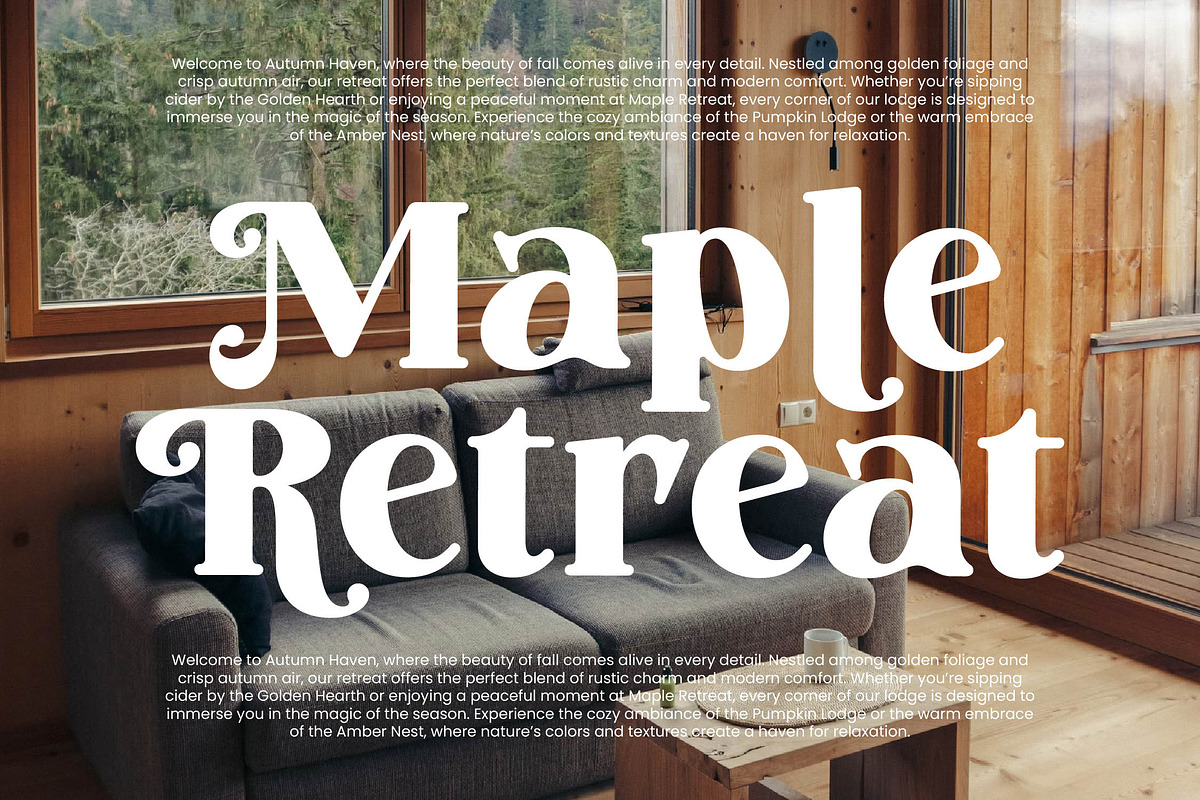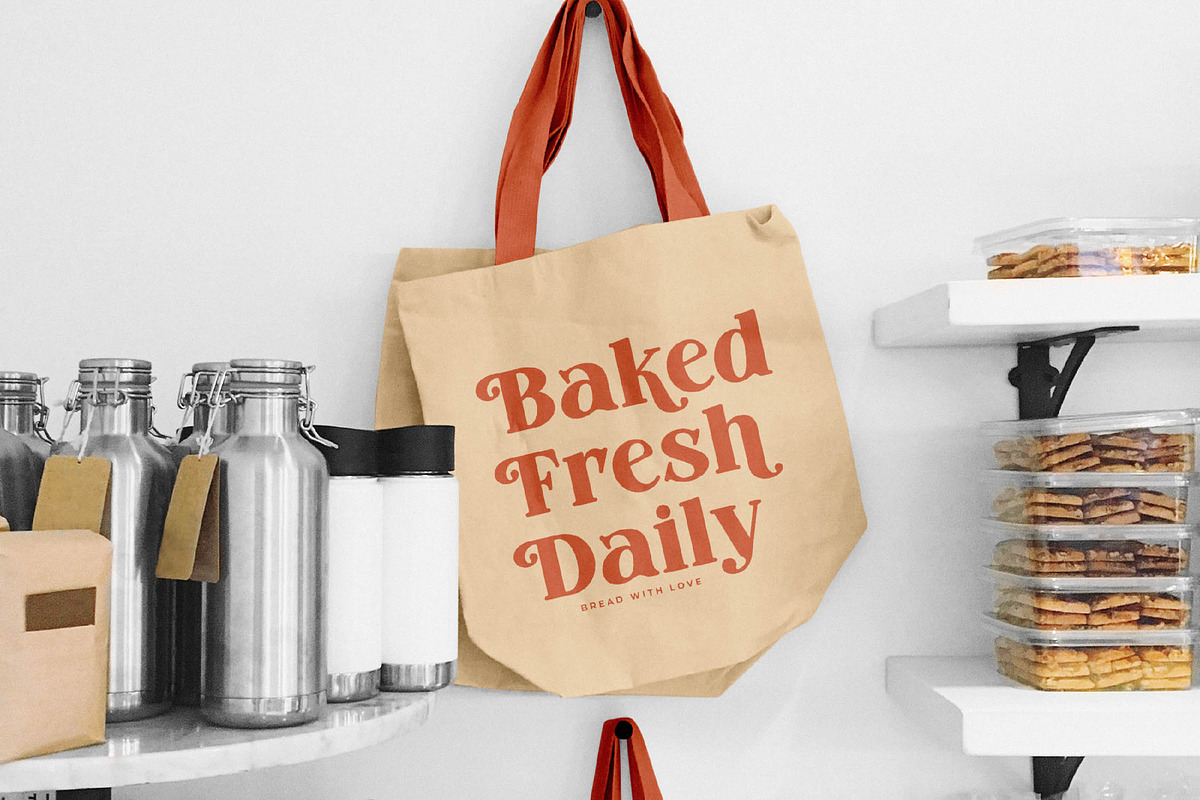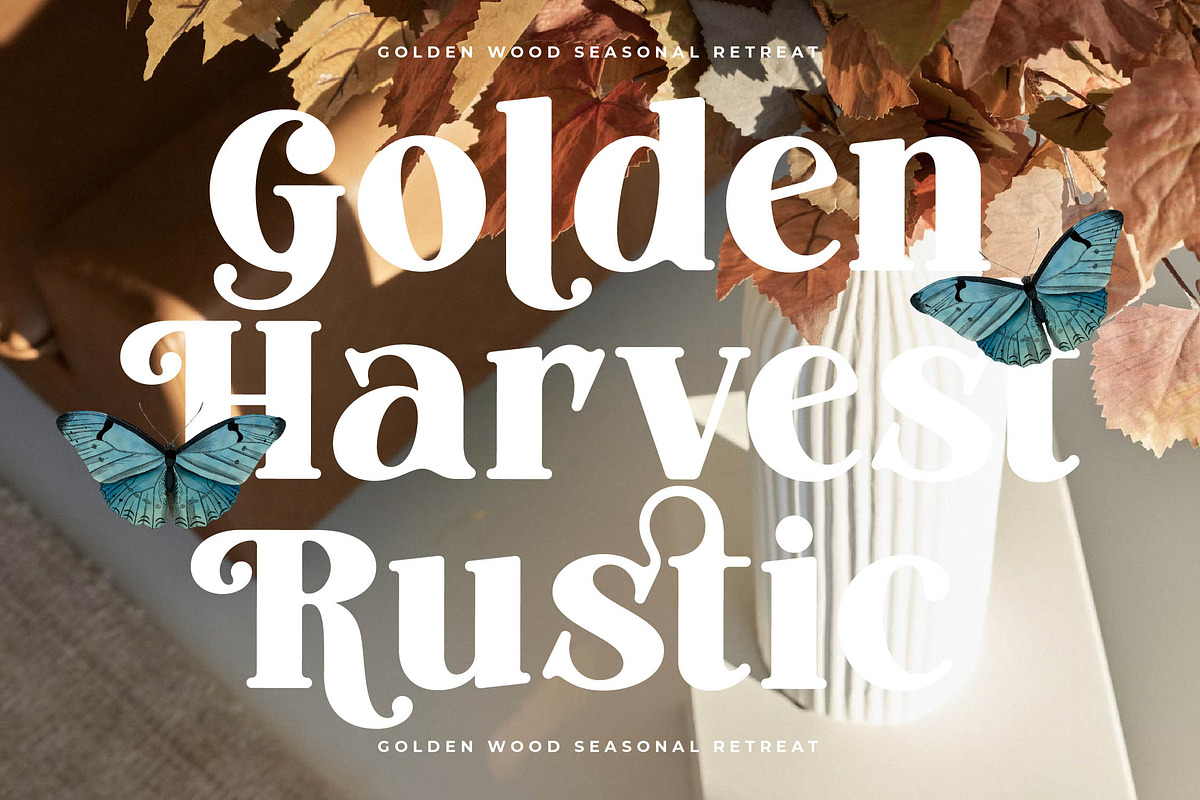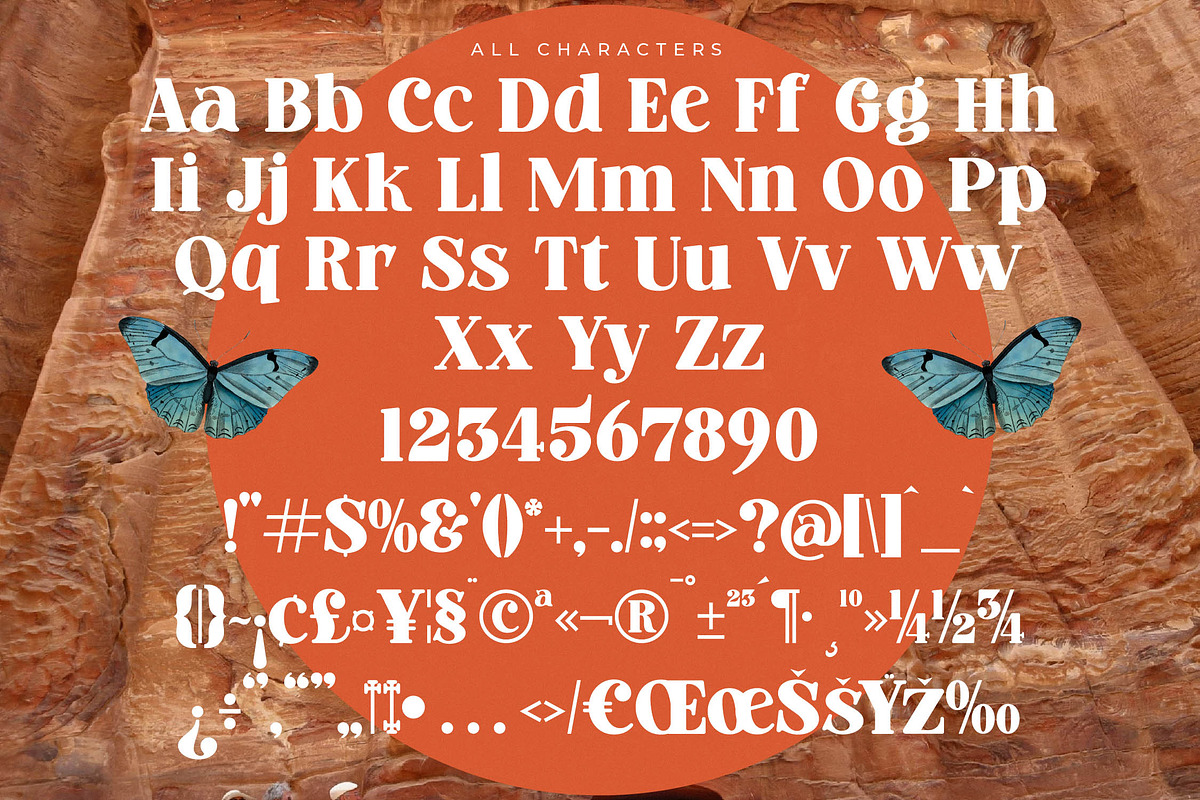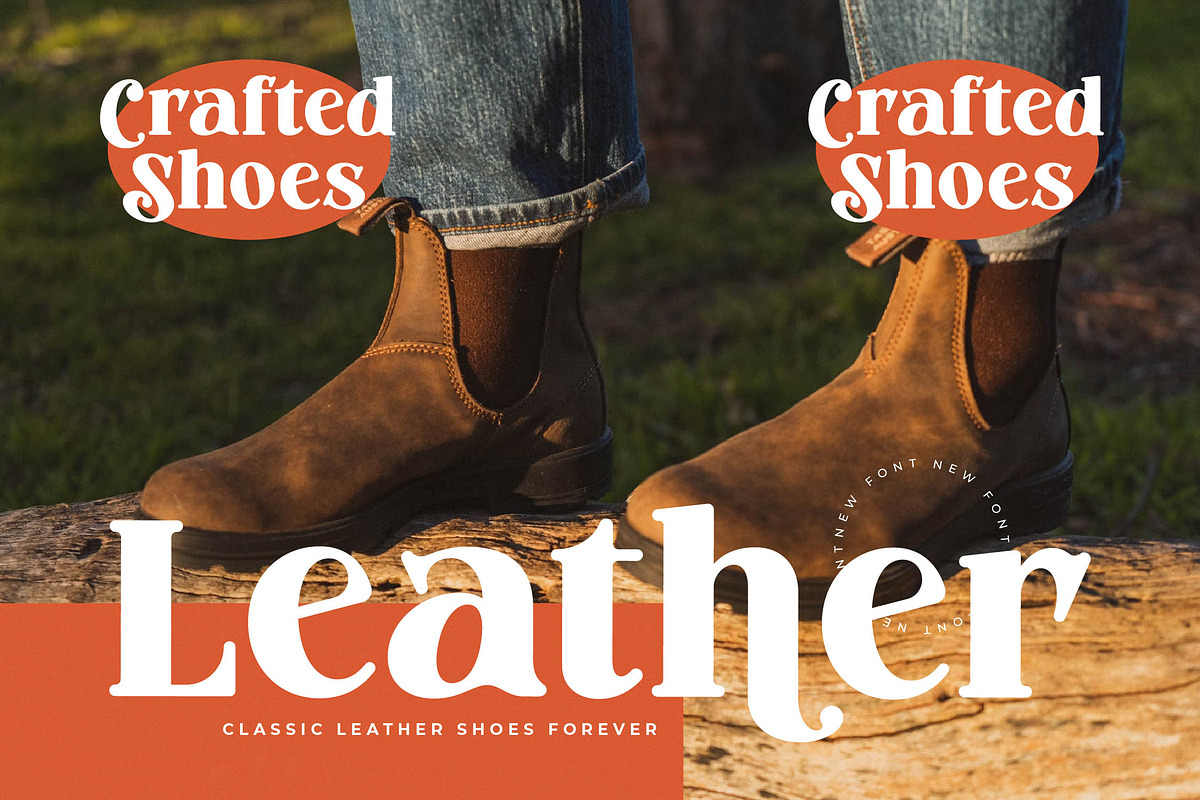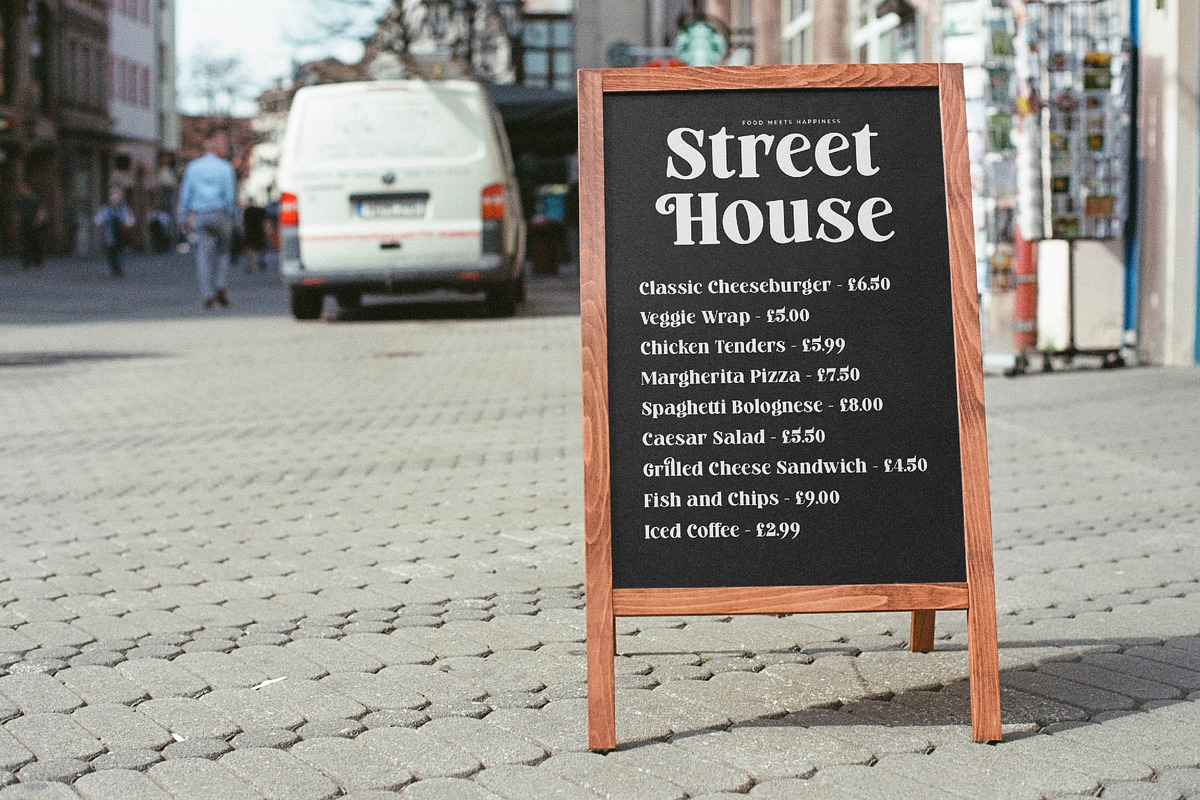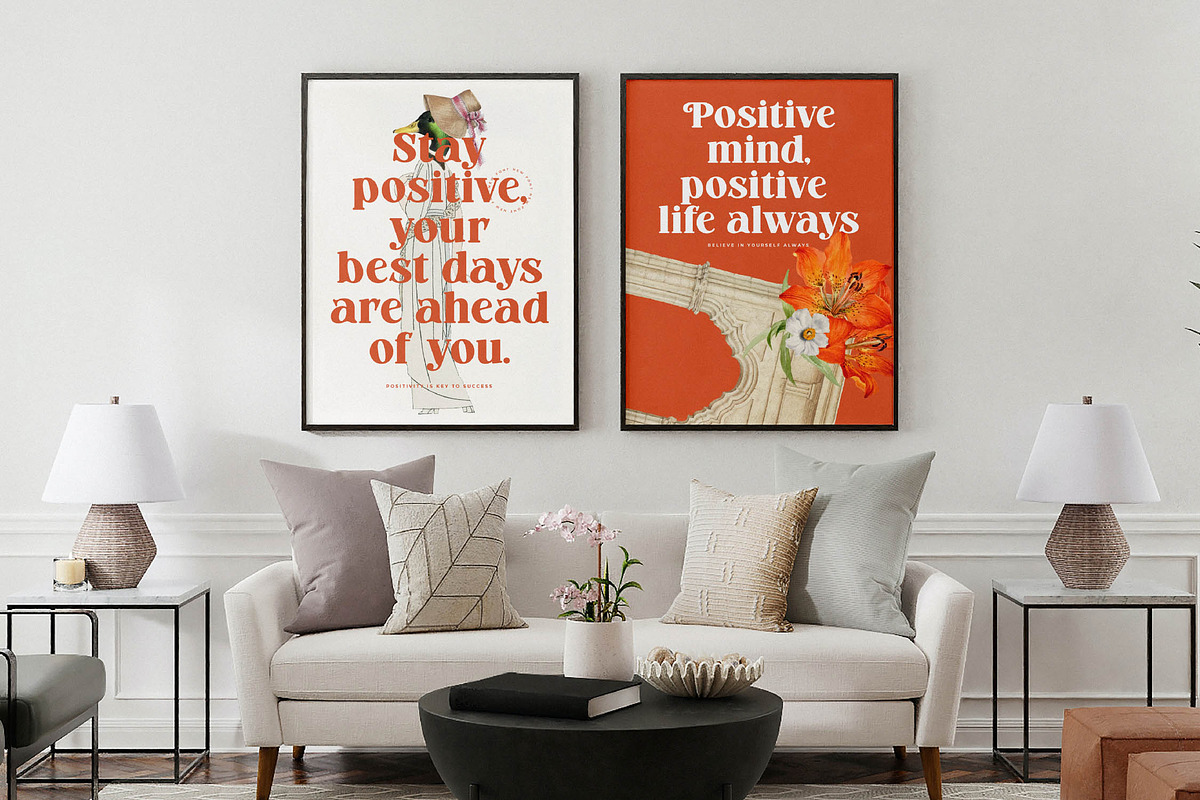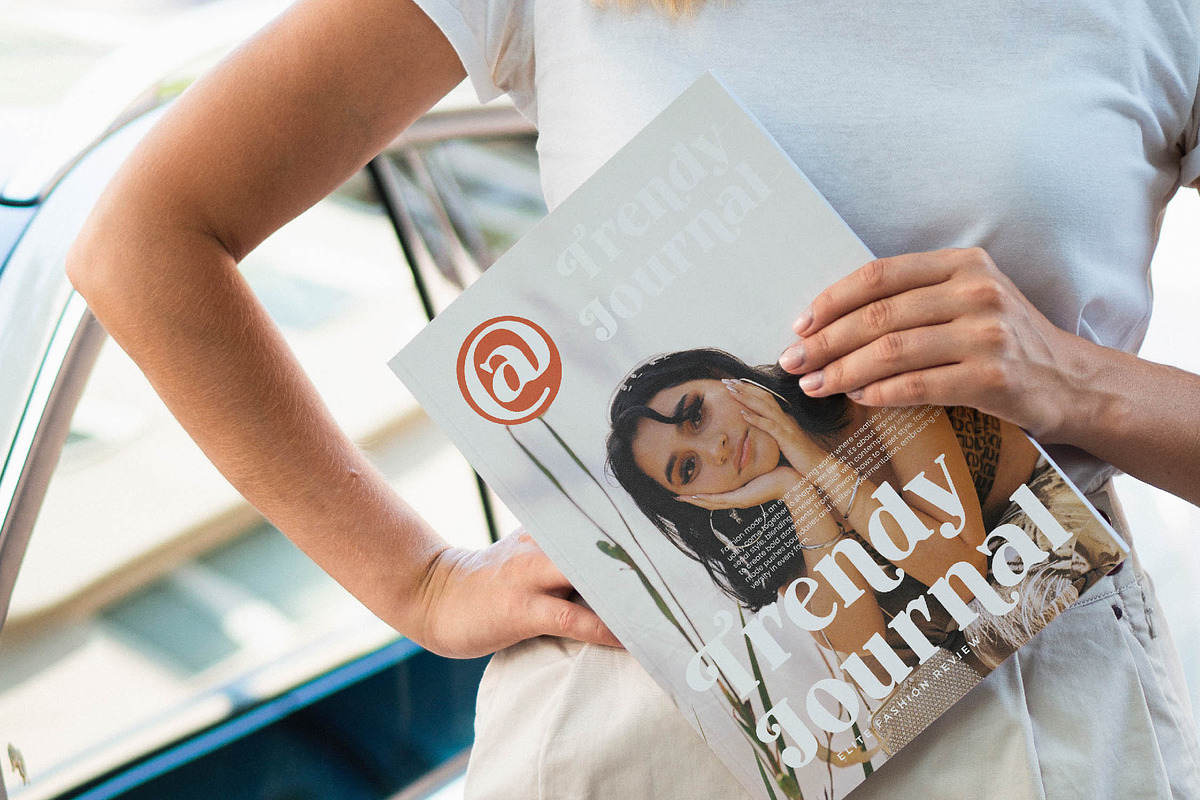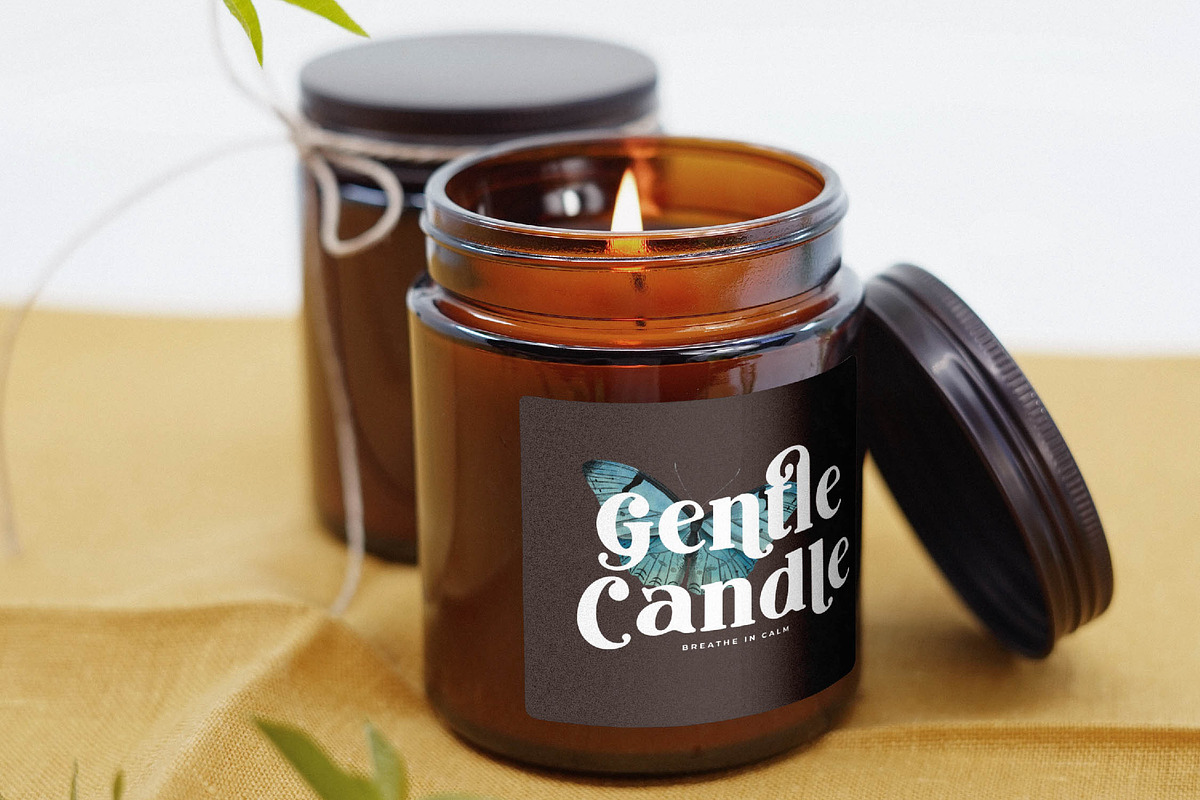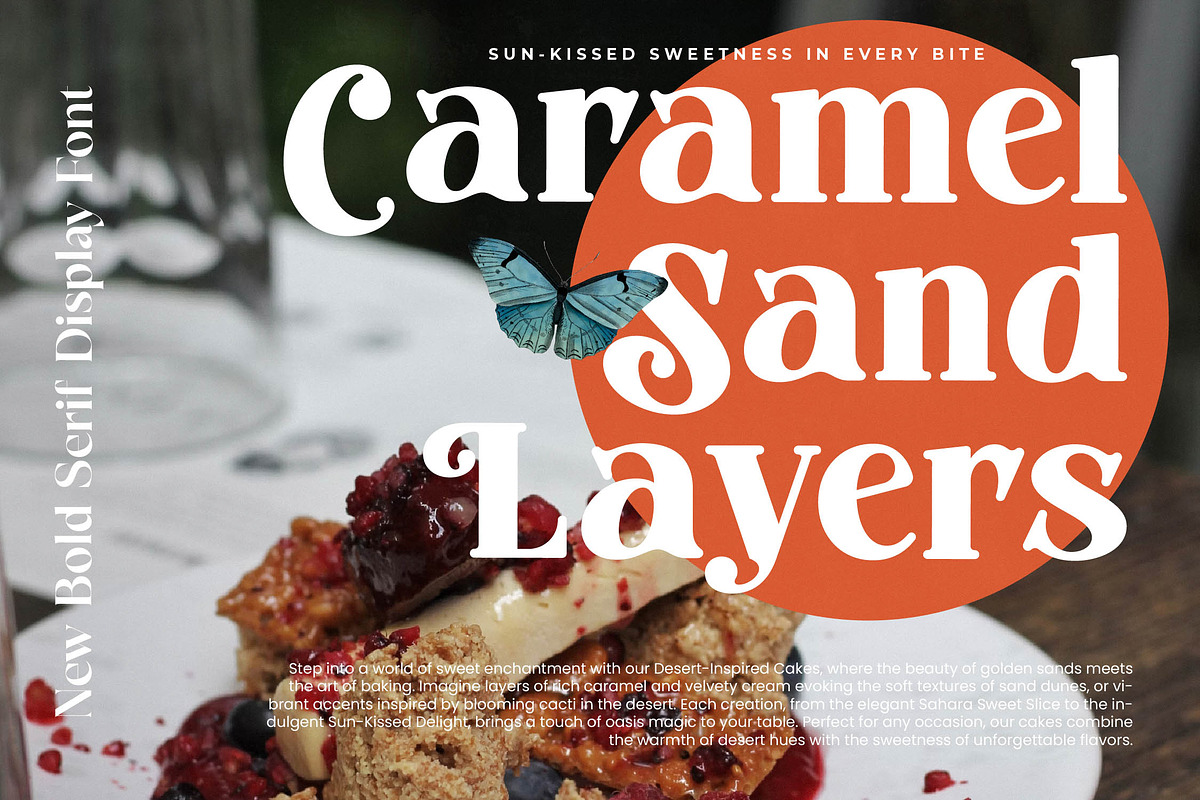
Marble Capital Bold Serif Font
Discover the commanding elegance of Marble Capital, a typeface designed to bridge the gap between timeless grandeur and contemporary chic. It is more than just a font; it is a visual statement for designers who crave a perfect balance of weight and grace.
Drawing inspiration from the stoic beauty of classical architecture and the fluid curves of botanical art, this typeface captures a unique heritage feel. Its sturdy stems and delicate flourishes evoke the atmosphere of a sun-drenched Mediterranean villa where history meets modern luxury.
As a modern serif display solution, it offers unparalleled luxury typography that commands attention on every page. This high-contrast serif is crafted for maximum branding impact, making it an essential editorial font for projects that require a sophisticated yet bold voice.
Riding the wave of the current modern serif trend, this typeface fulfills the growing demand for character-driven typography in high-end design. It stands out among editorial display fonts by offering a bespoke look that feels hand-crafted rather than digitally manufactured.
This versatile tool is ideal for high-concept logo design and comprehensive branding identity systems that need to feel established yet fresh. Whether it is applied to high-end editorial layouts, luxury packaging, romantic wedding stationery, or avant-garde fashion lookbooks, it delivers a consistent aura of prestige.
The package is rich with creative possibilities, including a vast array of unique ligatures and decorative alternates that allow for custom letter combinations. With elegant swashes and full multilingual support for various international characters, it ensures your creative vision translates perfectly across the globe.
- Ligature 14 Alternate 54